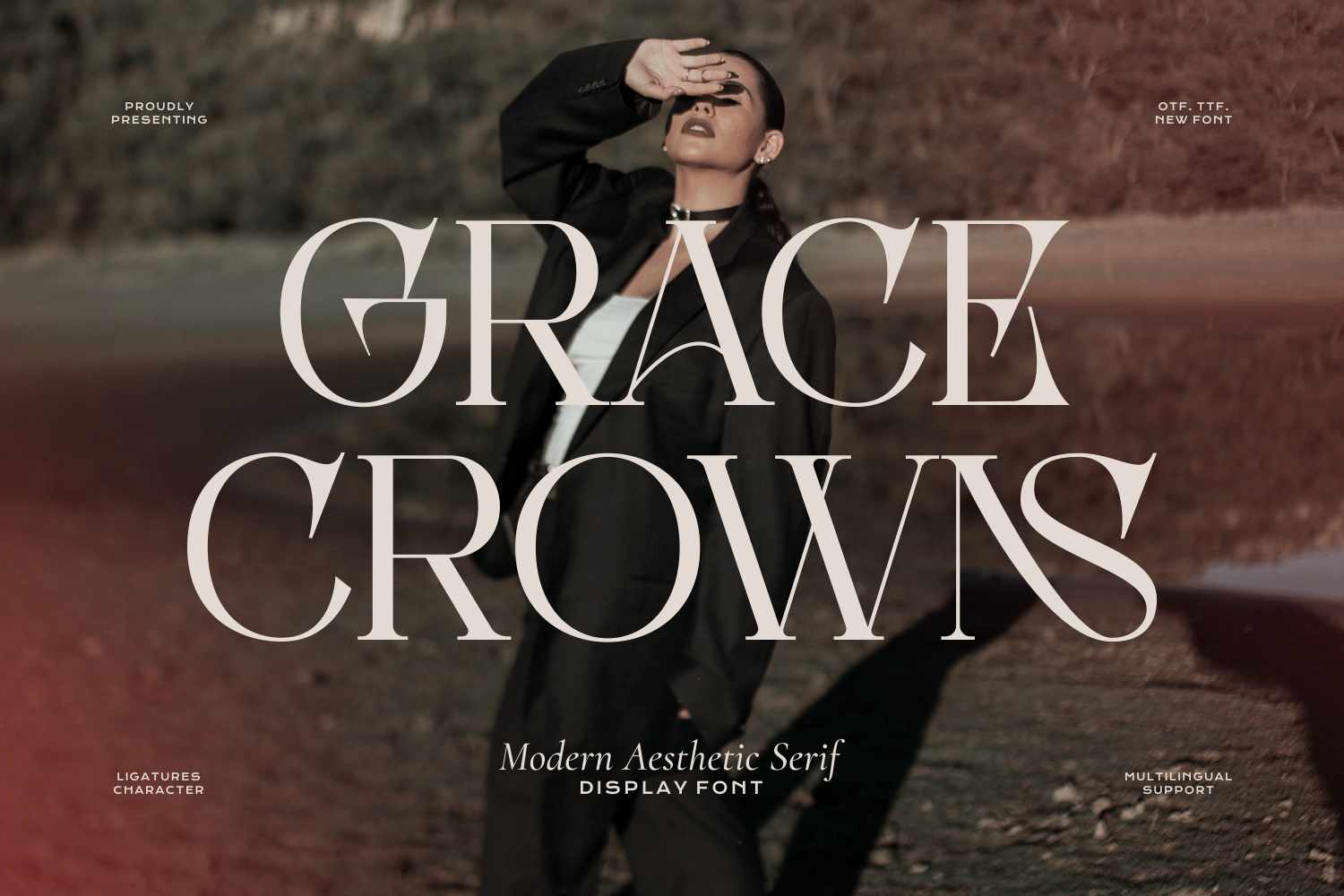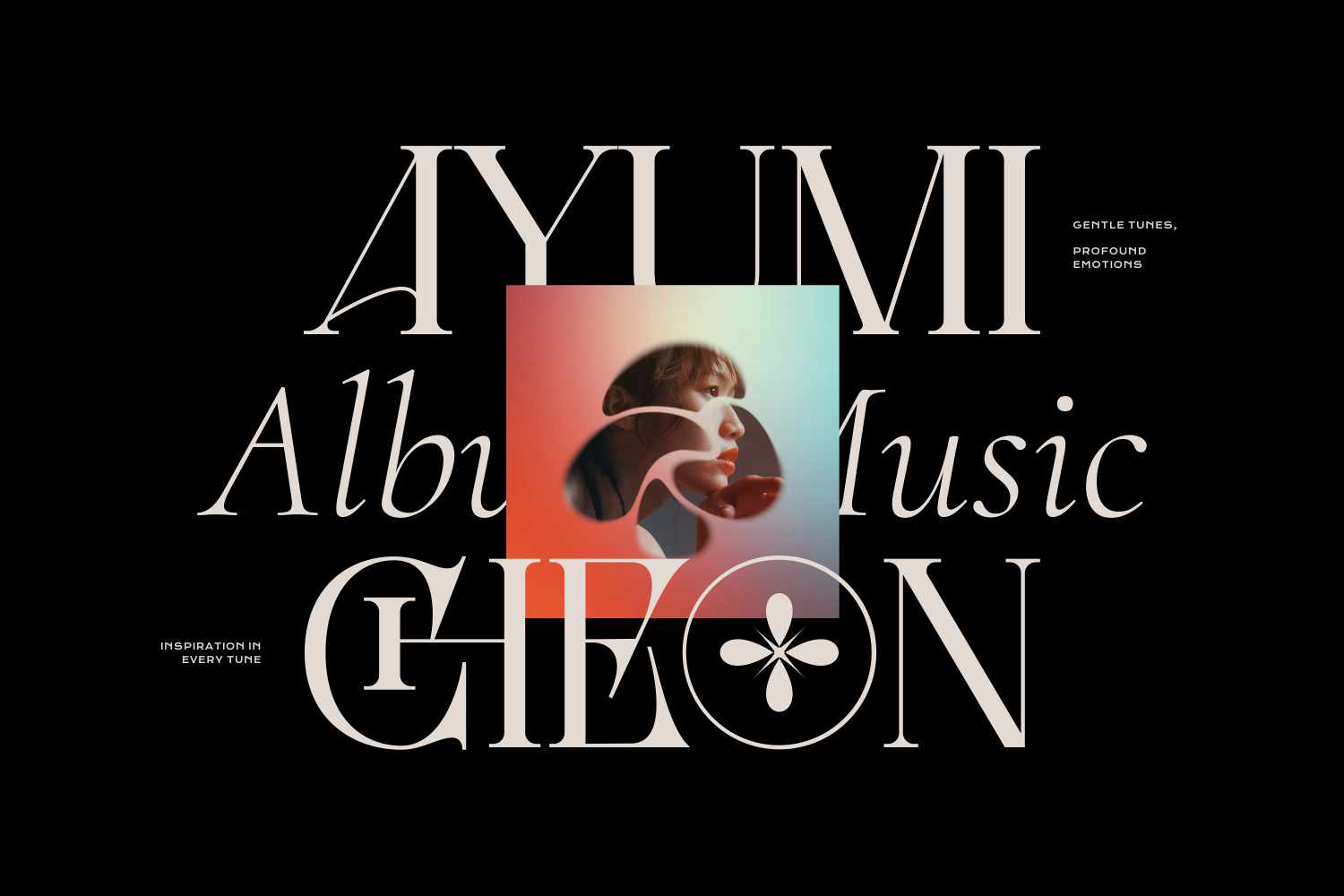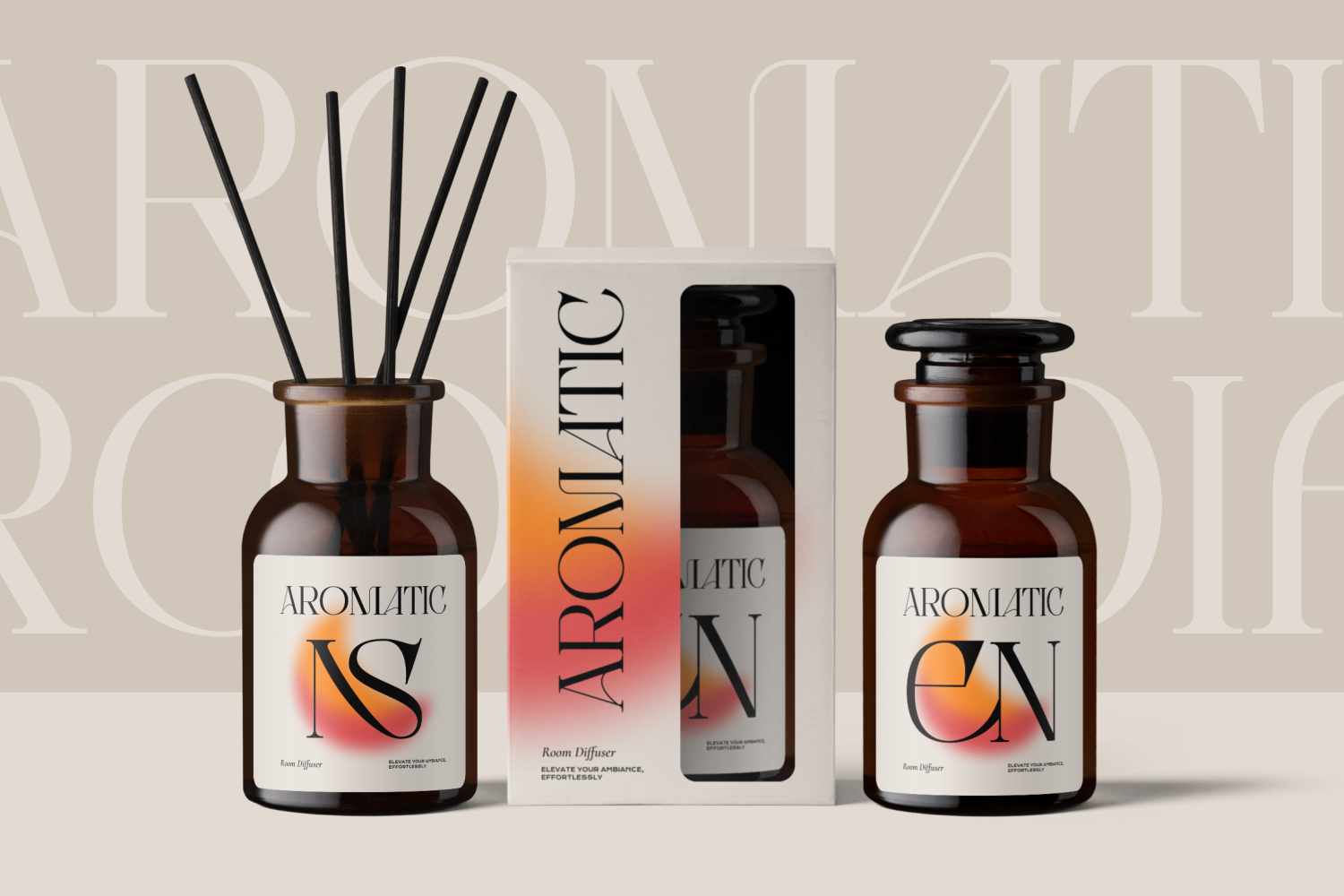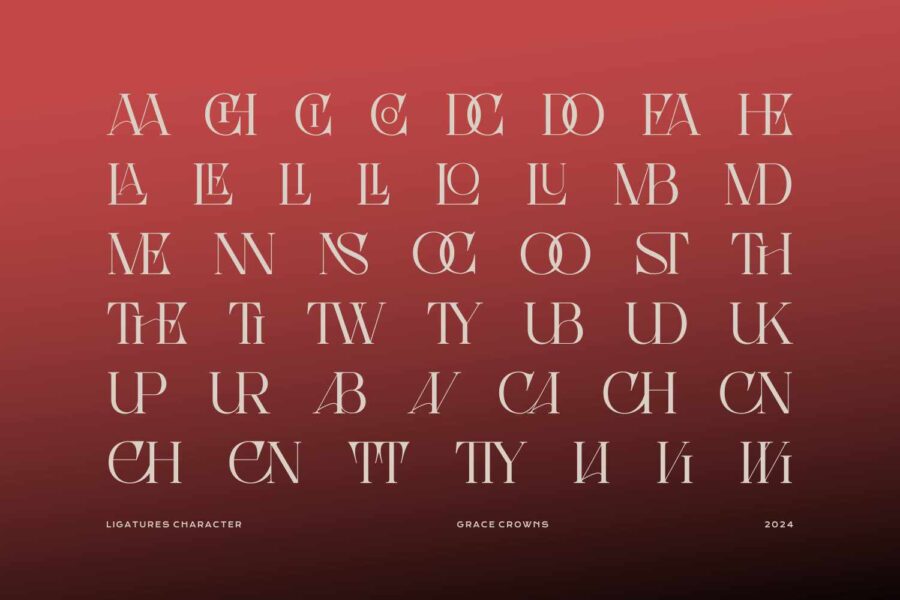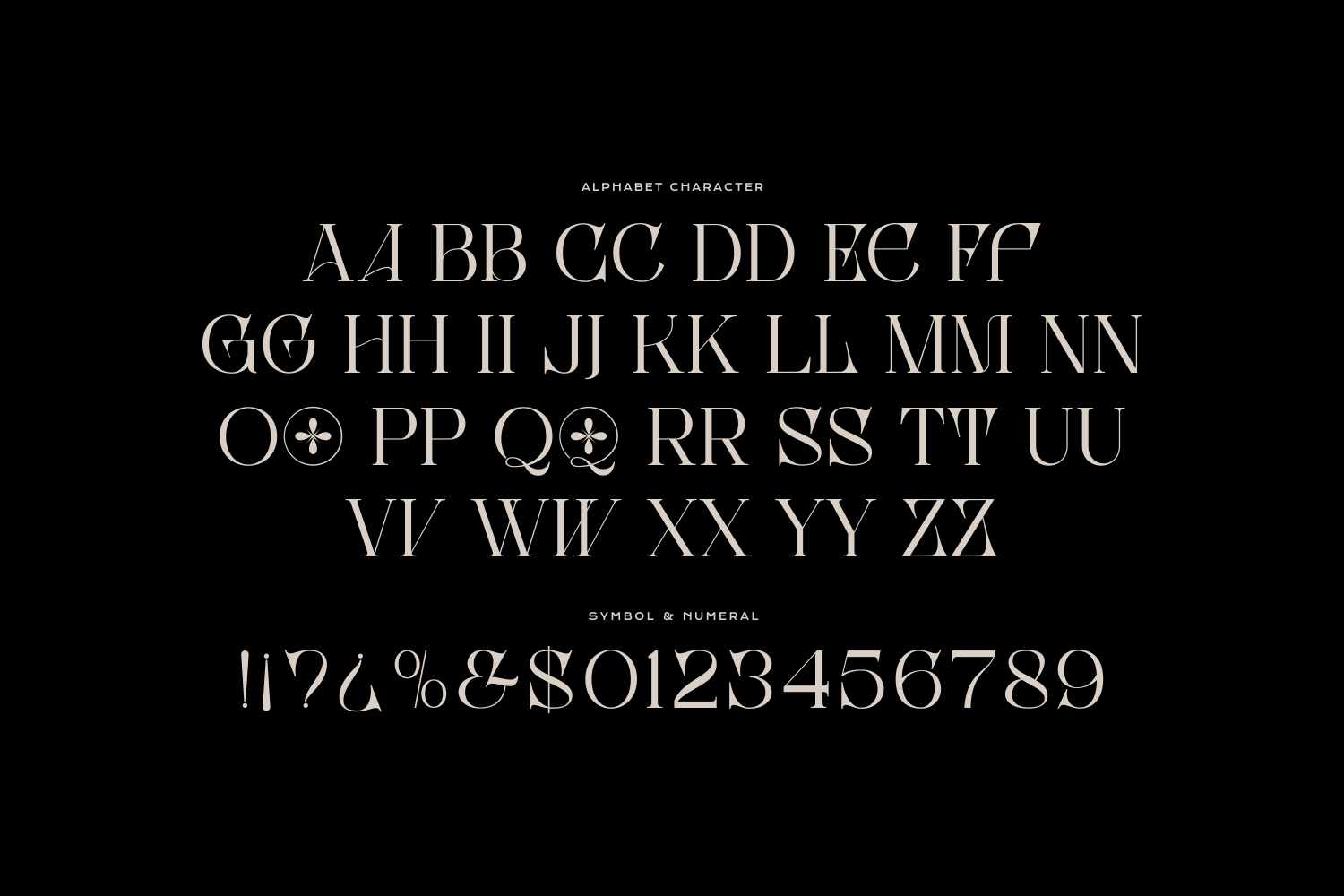
Grace Crowns is a modern aesthetic serif display font that exudes sophistication and elegance. With its high-contrast strokes, sharp serifs, and unique decorative cuts, it blends classic typographic beauty with contemporary design trends. Perfect for luxury branding, editorial layouts, fashion campaigns, and premium packaging, Grace Crowns offers a refined visual presence that makes every design feel exclusive and captivating.
This font also features a rich set of ligatures and alternates, giving designers the freedom to create distinctive and artistic typography. Whether showcased in bold headlines, magazine covers, product labels, or logo designs, Grace Crowns delivers a sense of grandeur and style. Its versatility, paired with multilingual support, ensures it stands out in both print and digital projects, making it an essential choice for high-end creative work.